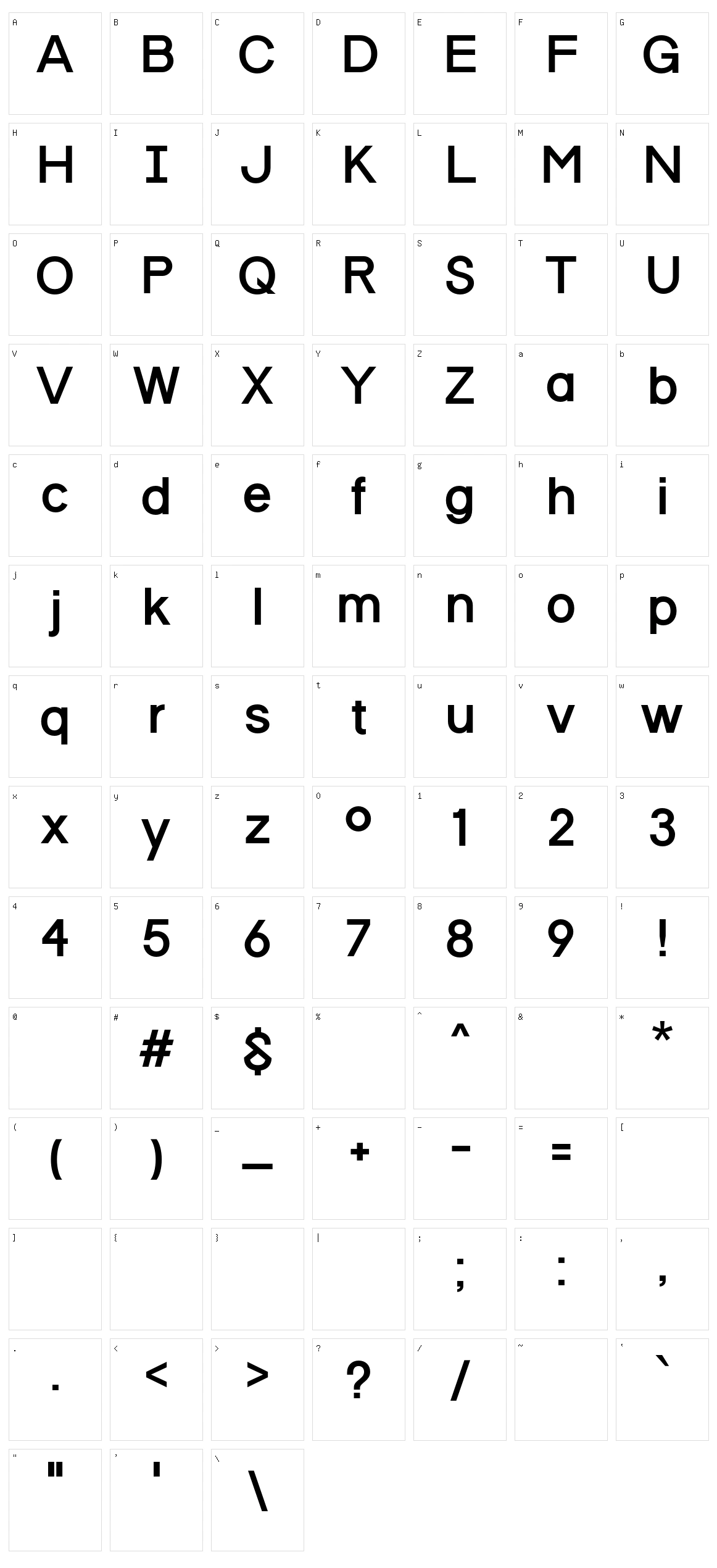
The free font Progress Ordin is carefully designed by Khay Redd, showcasing a thoughtful balance of creativity and usability and falls under the Sans serif font style. When you download the ZIP file, it contains only 16.94 KB of font files, making it lightweight and quick to download. Please review the license details below to understand permitted usage and distribution rights. If license information is not available, we recommend using this font for personal projects only or contacting the author directly for commercial usage permissions.